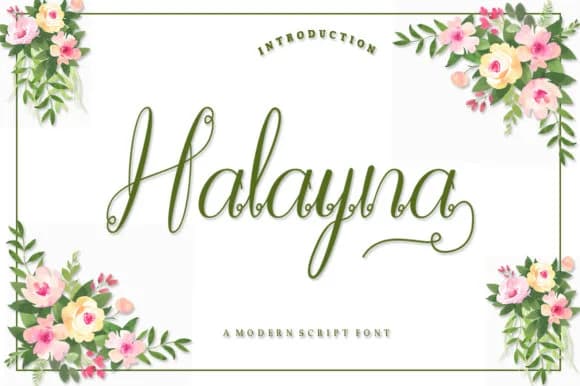
Halayna Font by IM Studio is a modern handwritten script that brings fluid elegance to contemporary design work. With its flowing letterforms and natural rhythm, this typeface excels at bridging the gap between casual charm and polished professionalism. The font's careful construction and balanced proportions make it ideal for designers seeking an authentic hand-drawn aesthetic without sacrificing legibility or sophistication. Whether displayed at large sizes or used in smaller contexts, Halayna maintains visual clarity and appeal.
This script typeface shines across diverse creative applications. Design compelling wedding invitation suites that feel personal and refined, create boutique product labels that stand out on retail shelves, craft social media graphics that capture authentic brand voices, or develop logo concepts for creative businesses wanting to convey both artistic flair and established trustworthiness. The consistent letterforms and versatile construction offer solutions for everything from elegant paragraph headers to decorative display text, making Halayna equally valuable in branding projects, editorial work, and custom packaging design.
Halayna Font delivers the handcrafted appeal that contemporary audiences respond to while maintaining professional design standards. Its distinctive character brings personality to every project, whether you're building a complete brand system or enhancing a single piece with authentic visual interest. Add this script typeface to your Creative Fabrica collection and discover how it brings character to your creative work.
Halayna Font is a script font that shines as a display or heading face. Pair it with a clean sans-serif or serif font for body text β the contrast creates a clear hierarchy while the two styles stay balanced and easy to read.
Halayna Font